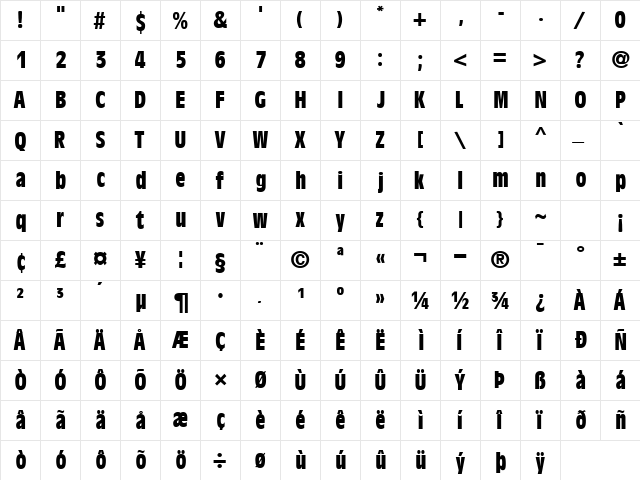
Decade Regular
Design Context for Decade Typeface
Decade offers clean, dependable letterforms without strong stylistic allegiance, making it a practical choice for designers who need flexibility.
Pro Tip: Use Decade in both headline and body roles to test its range before committing to a single application.